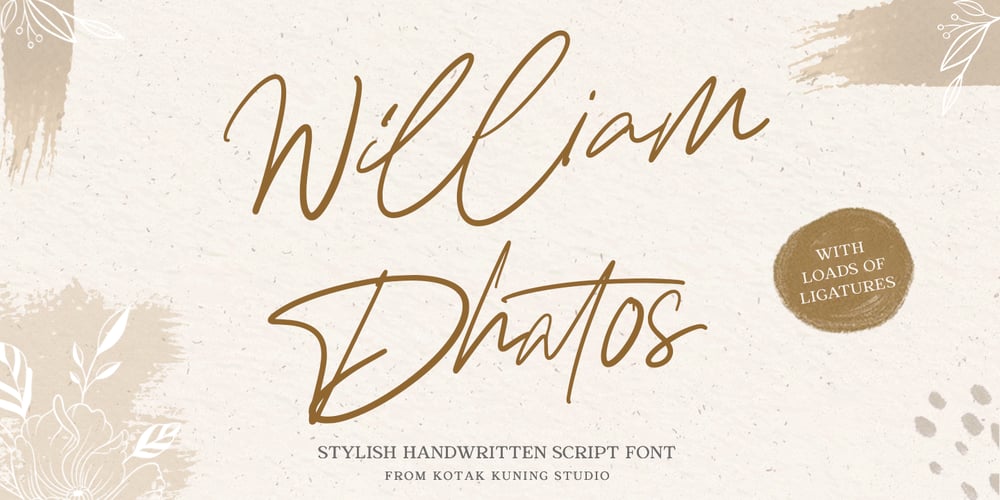
William Dhatos Font Family was designed by Arif Dwi and published by Kotak Kuning Studio. William Dhatos contains 1 styles and family package options. William Dhatos is a handwritten signature script with a natural and stylish flow. This font has a multitude of natural looking ligatures in its OpenType features – making the font look as close to natural handwriting as possible.William Dhatos is perfect for many different projects such as logos and branding, invitation, stationery, wedding designs, social media posts, advertisements, product packaging, product designs, label, photography, watermark, special events and more.